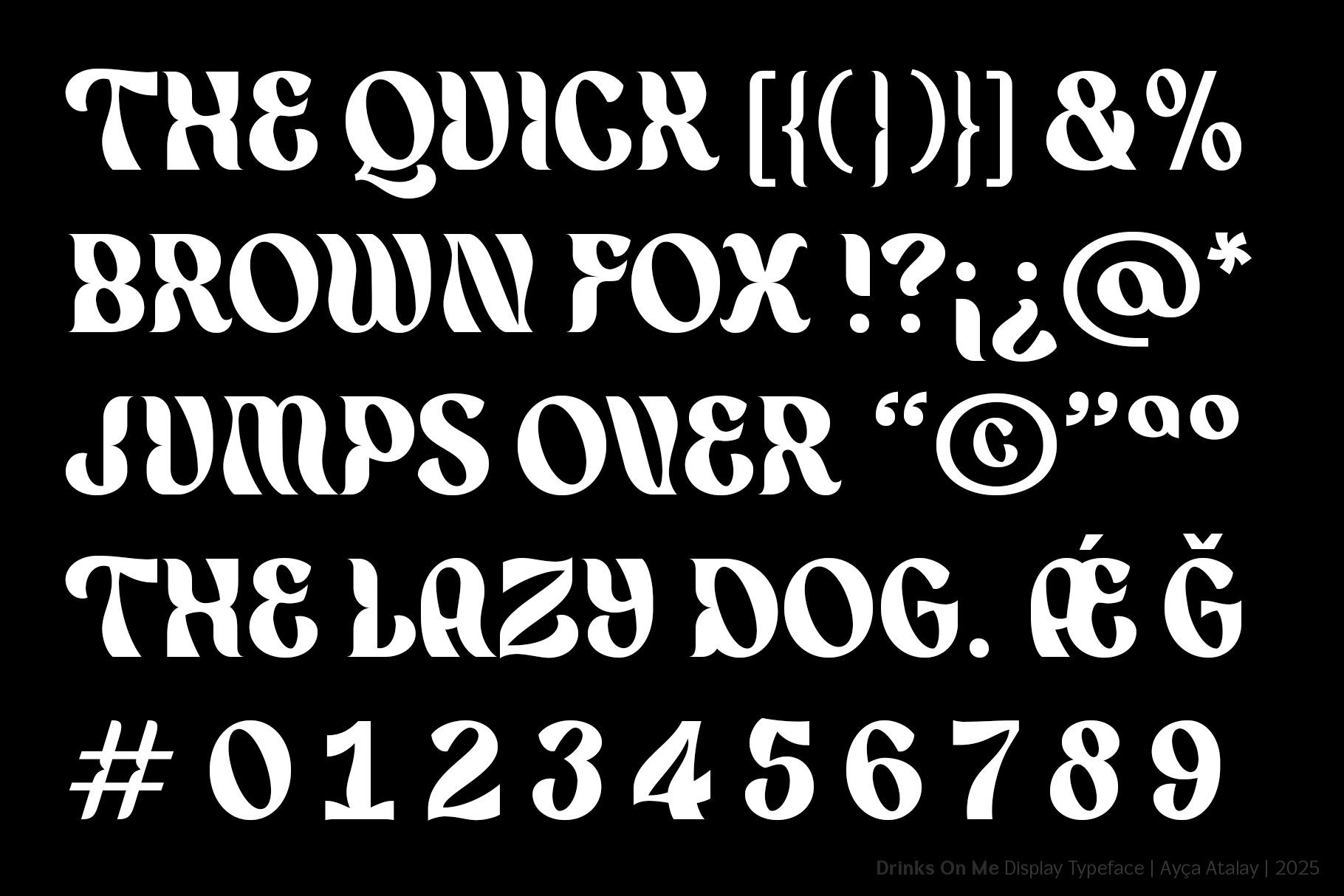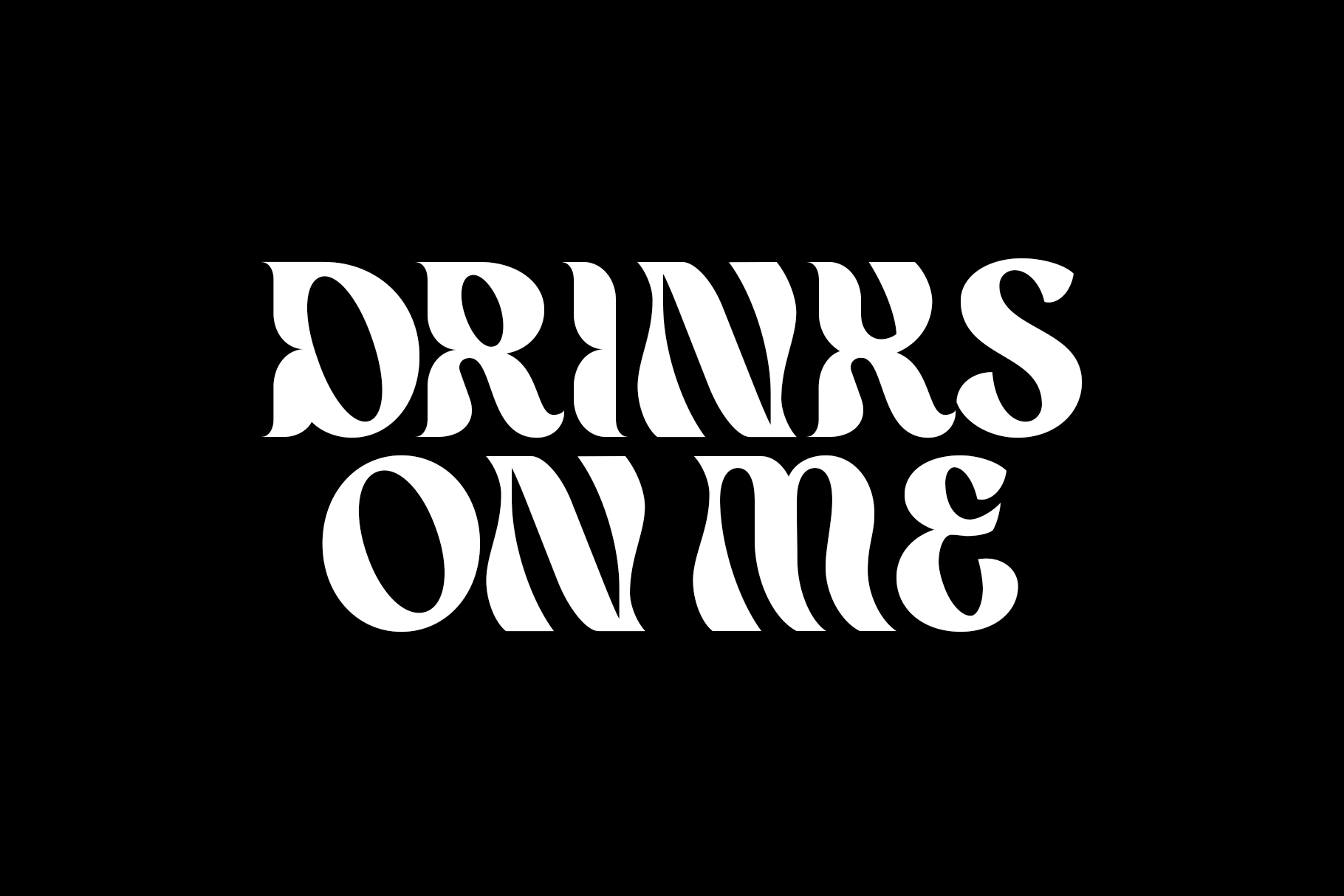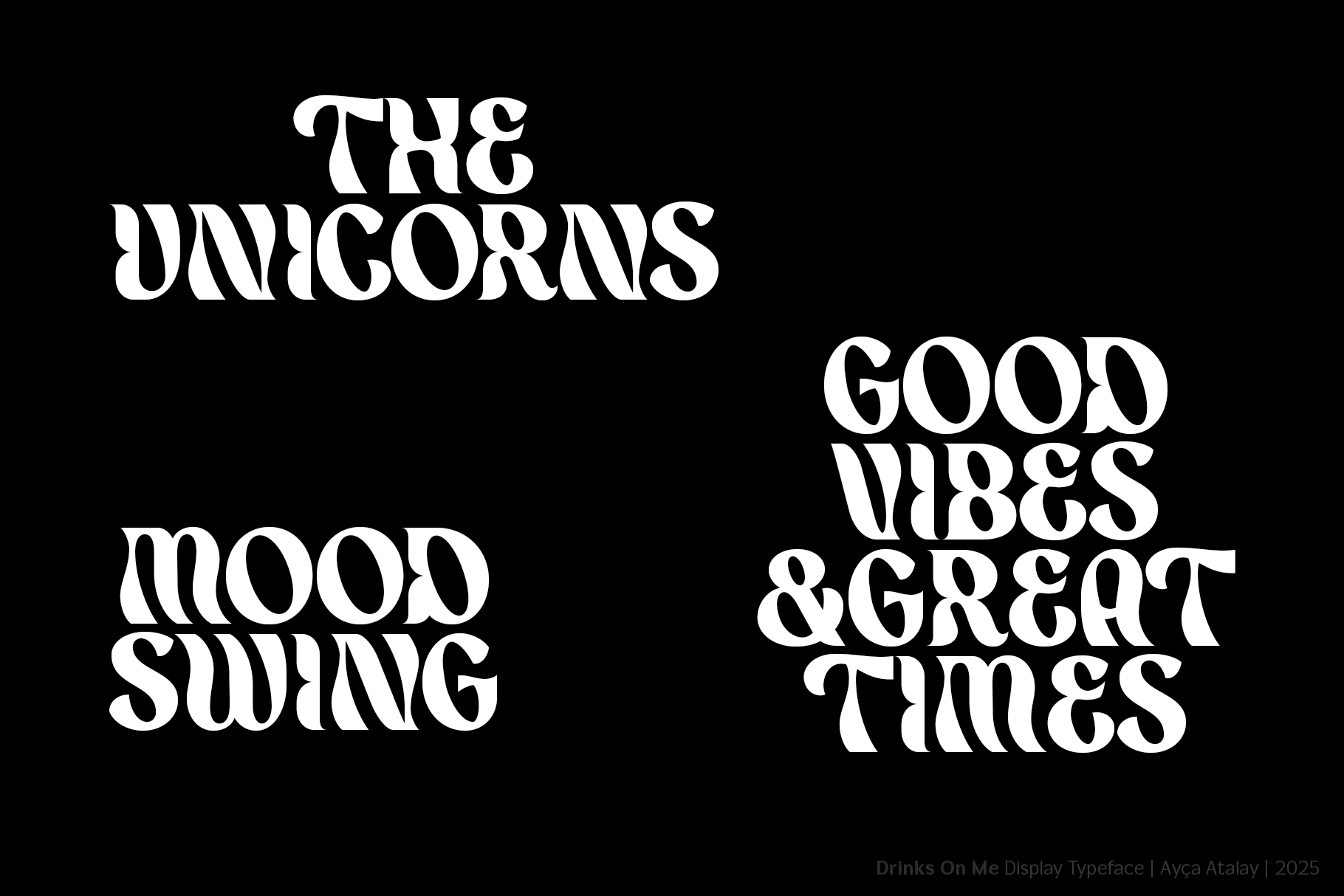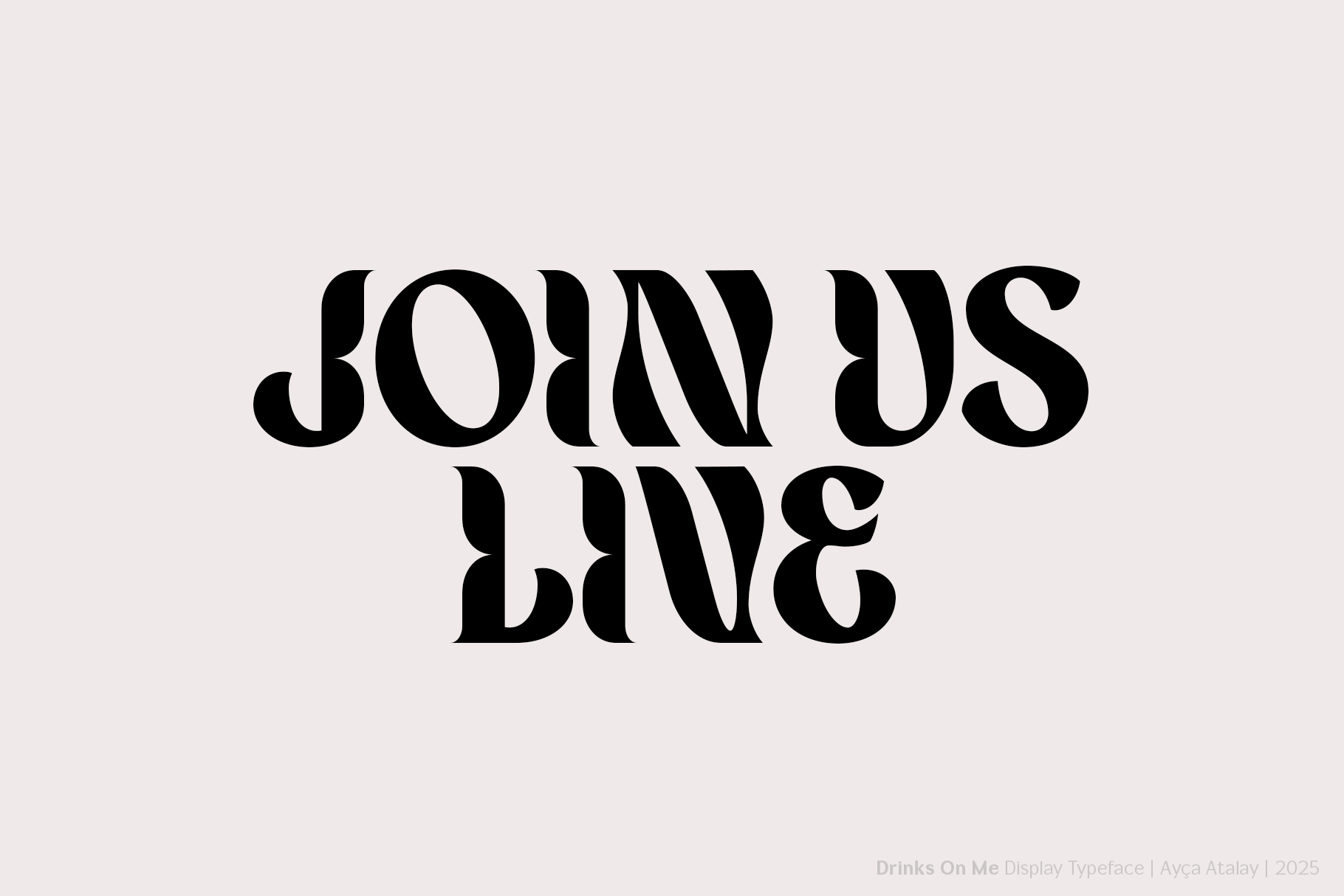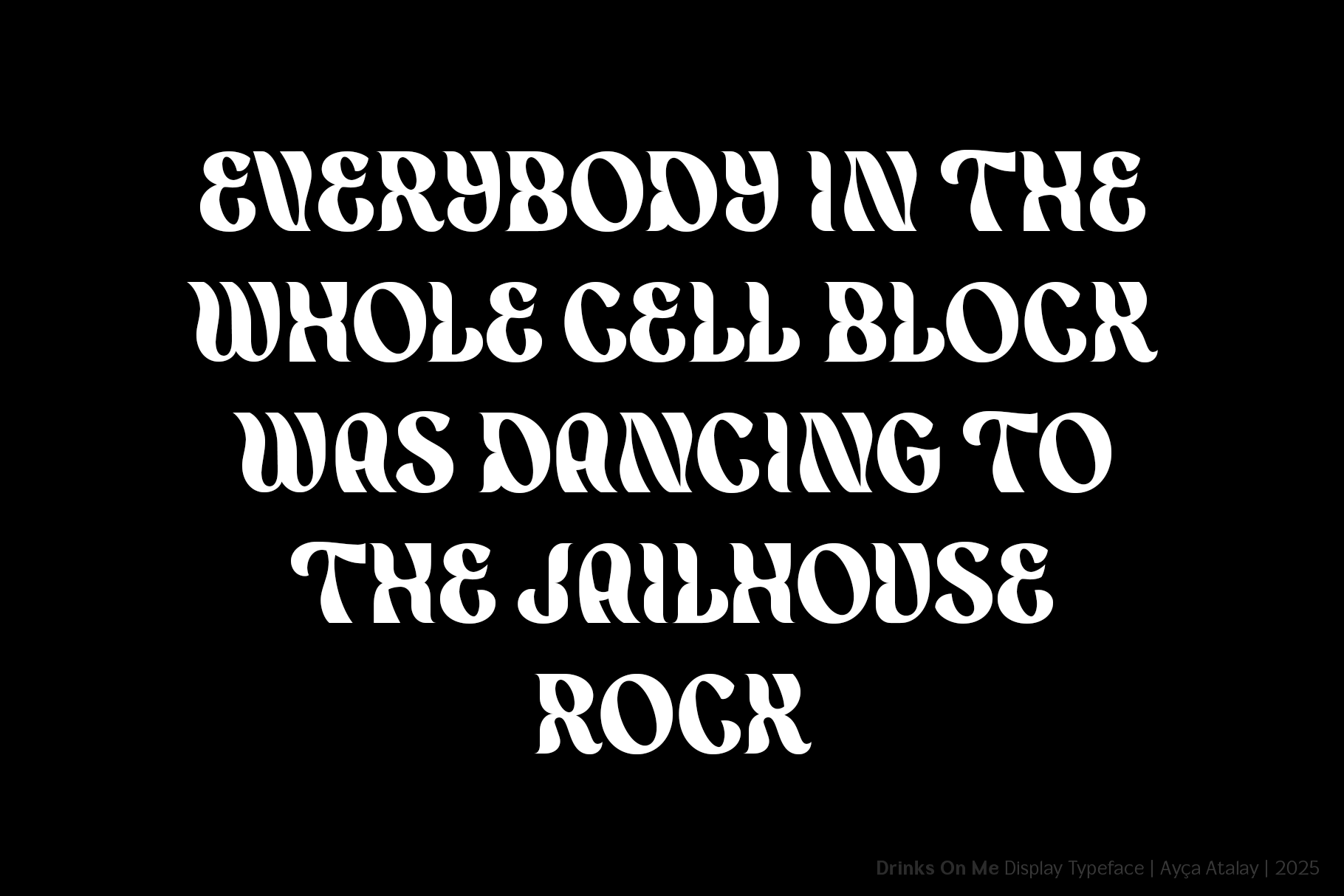
Drinks On Me | Funky Display Font
Drinks On Me Funky Display Font   Drinks On Me is a bold & curvy display font with eye catching curves. Its eccentric yet smooth appearance makes it ideal for headlines, titles and for logo & brand design.   FEATURES - All Caps with some stylistic alternates - Numerals - Full set of Punctuation Marks - Multilingual   FILES - Drinks On Me OTF - Drinks On Me TTF